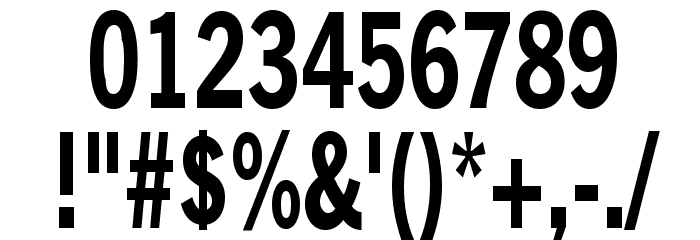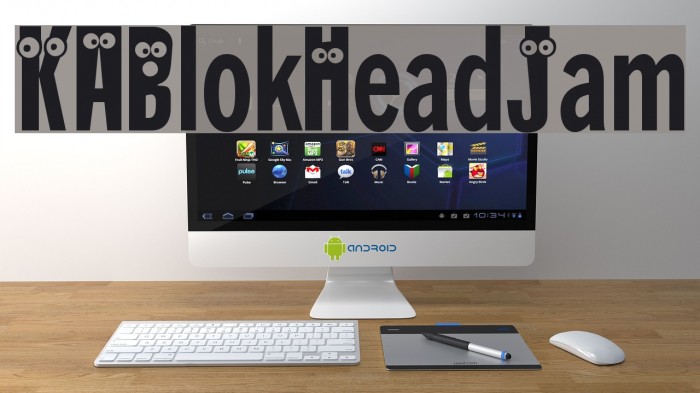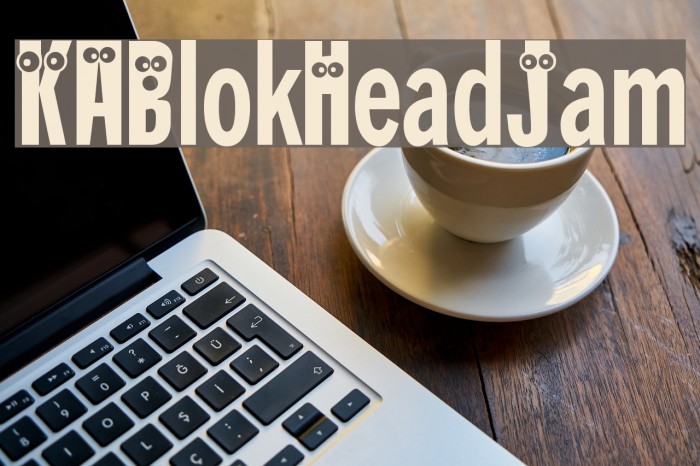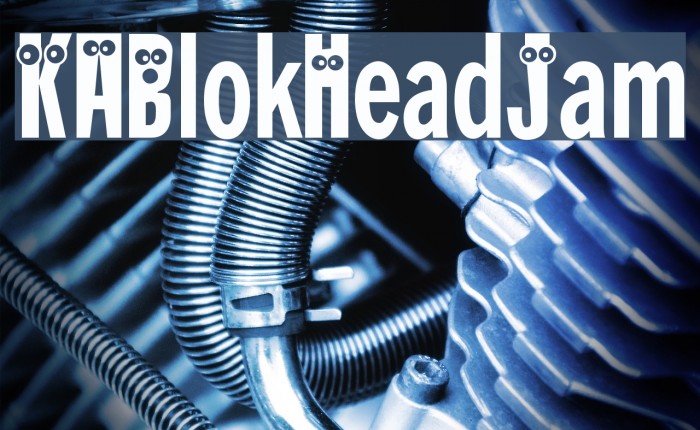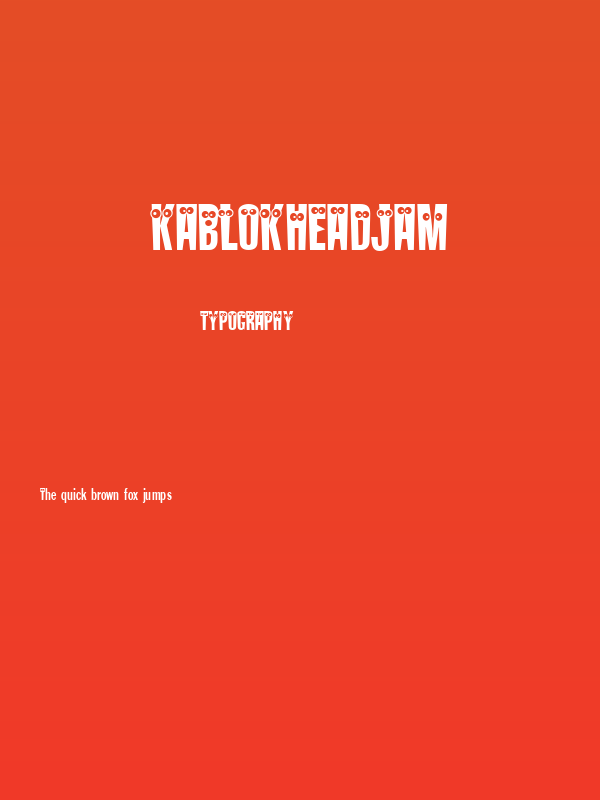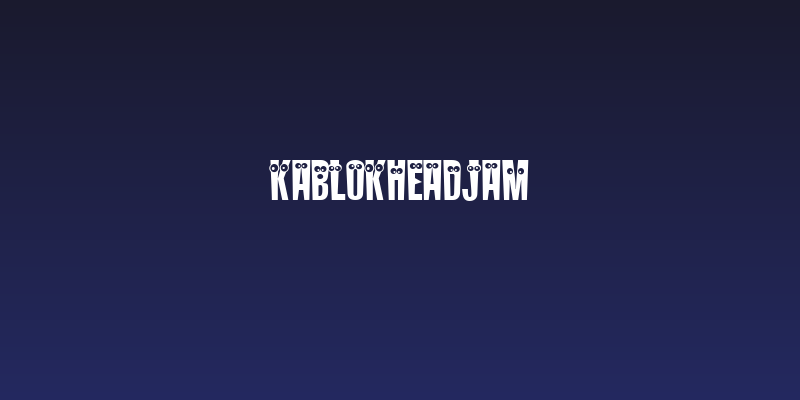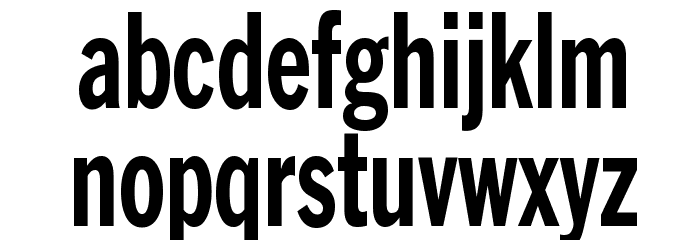
KABlokHeadJam Font
KABlokHeadJam Description
This playful and bold font features uppercase letters with quirky eyes embedded within each character, adding a whimsical and fun element. The lowercase letters maintain a strong, bold presence without the eye motif, creating a striking contrast between the two cases. The numbers and special characters are designed with a consistent boldness, ensuring readability and impact. The font's unique style makes it ideal for projects that require a touch of humor and creativity, such as children's books, playful branding, or eye-catching posters.
| Proposed Projects | Ideal for children's books, playful branding, and eye-catching posters. |